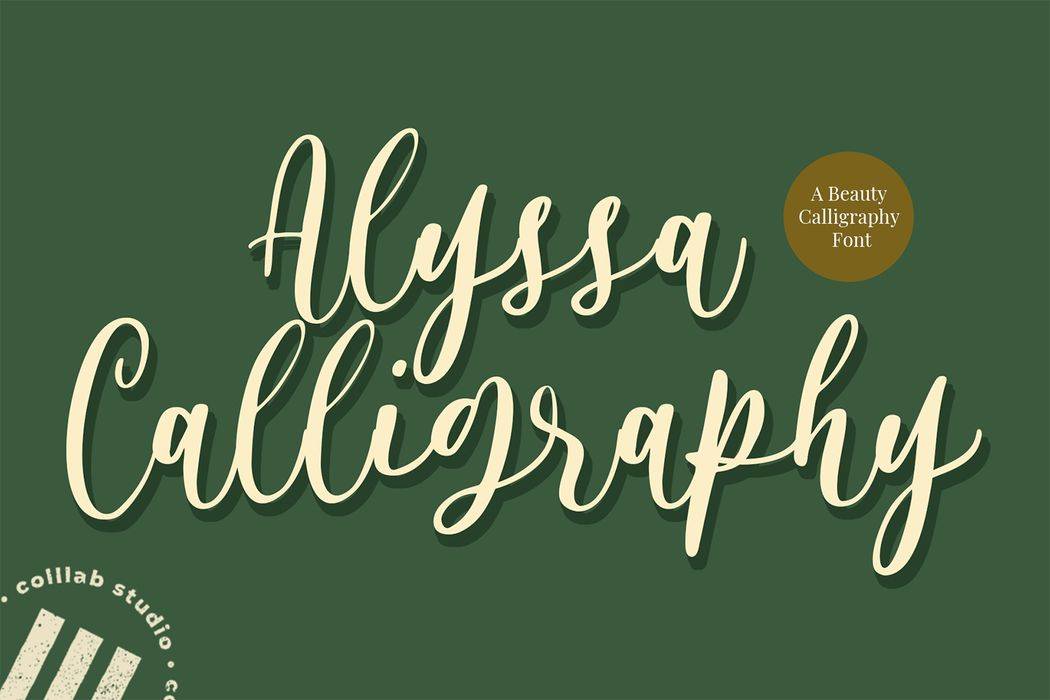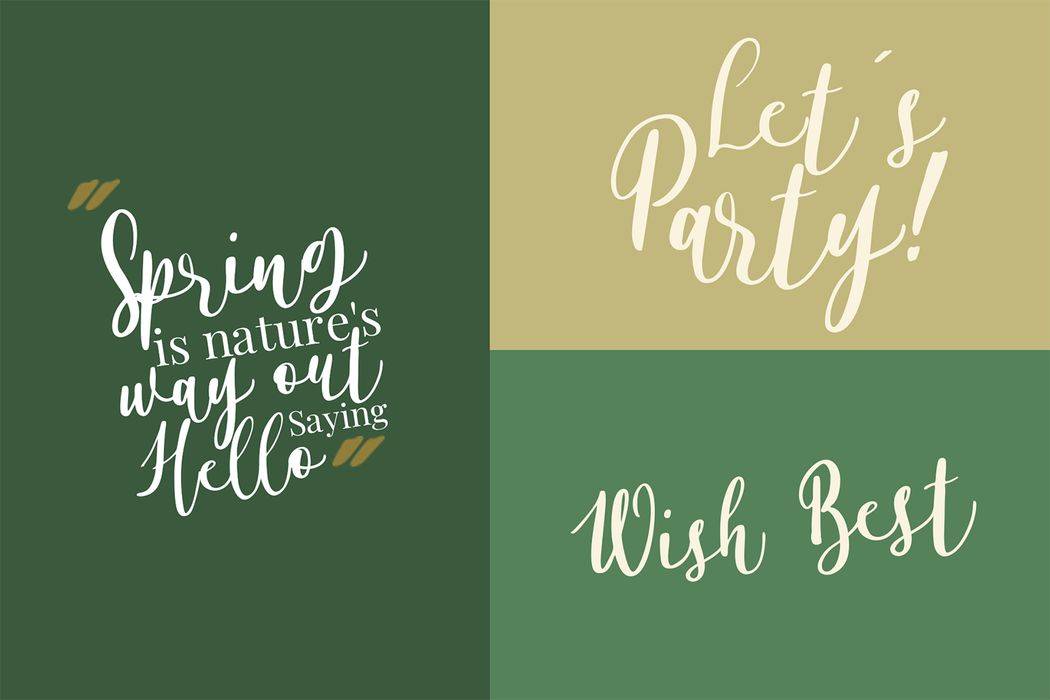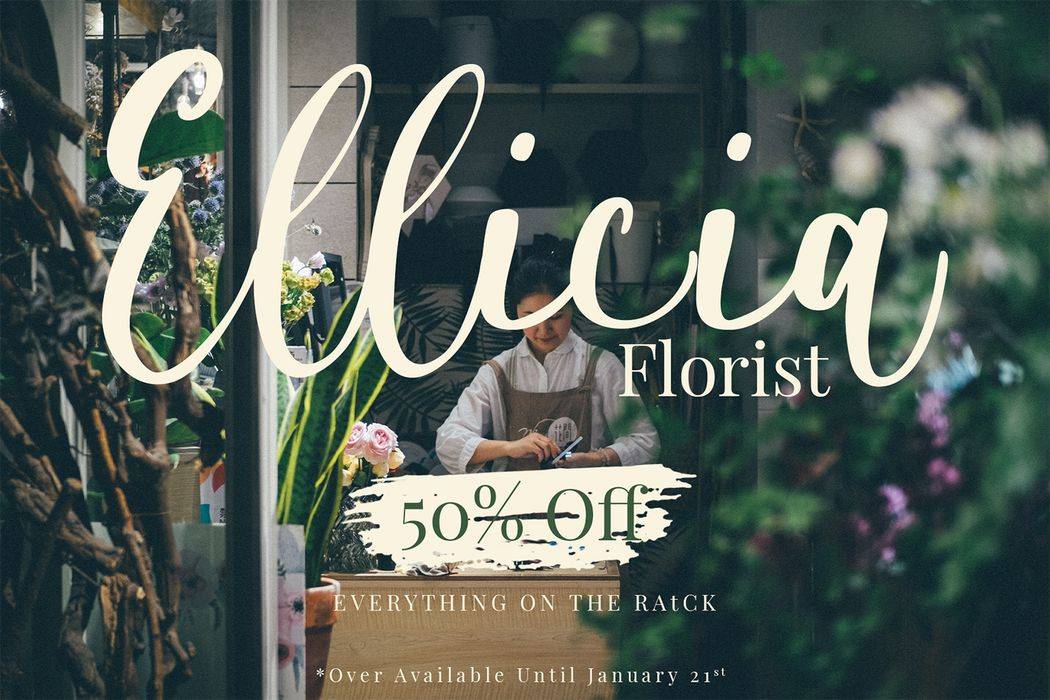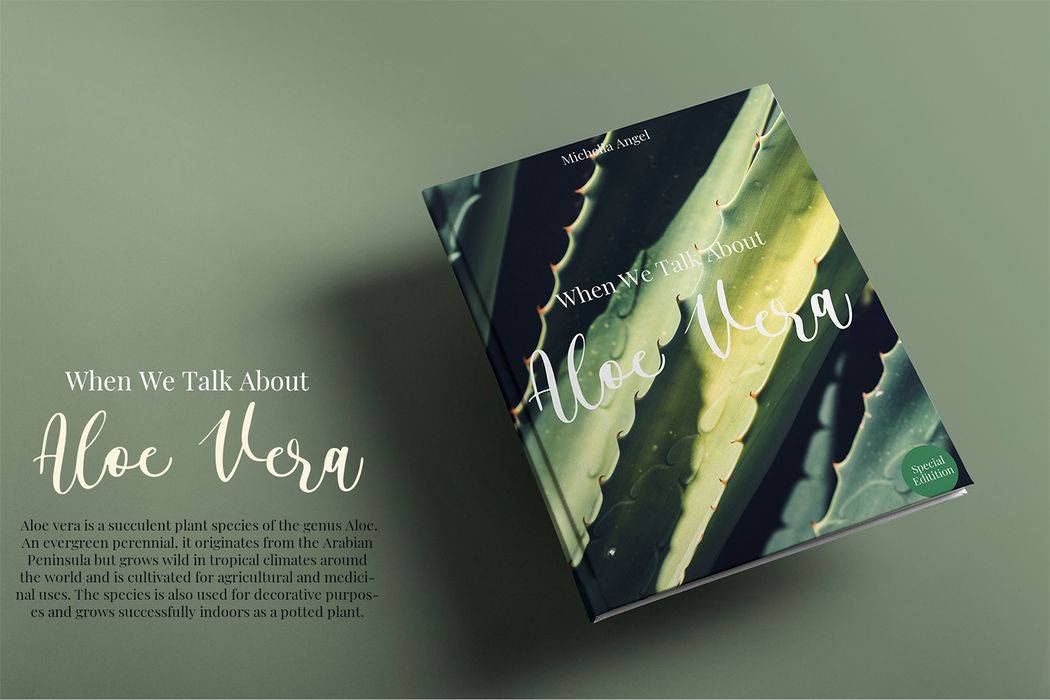
Alyssa Calligraphy is an elegant script font with fluid, hand-drawn strokes that convey a sense of grace and sophistication. Its delicate yet lively letterforms, featuring moderate contrast and rounded edges, make it perfect for invitations, branding, and any design seeking a personal, artistic touch. This font shines in projects that benefit from a stylish, feminine feel with a modern calligraphic charm.
Alyssa Calligraphy Font
About Alyssa Calligraphy Font
| Font family | Alyssa Calligraphy Font |
| Release date | 2020-07-15 |
| Designer | Colllab Studio Team |